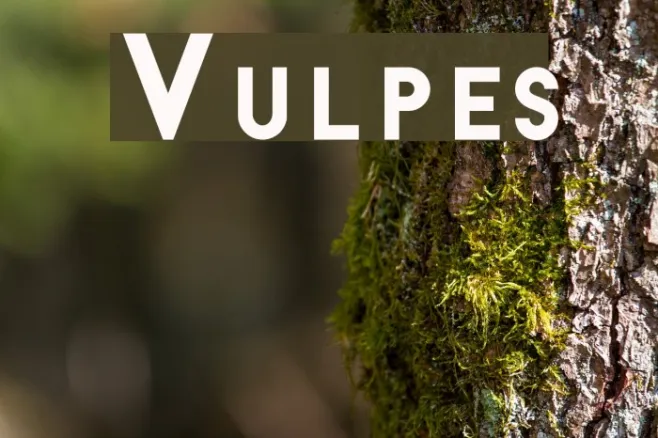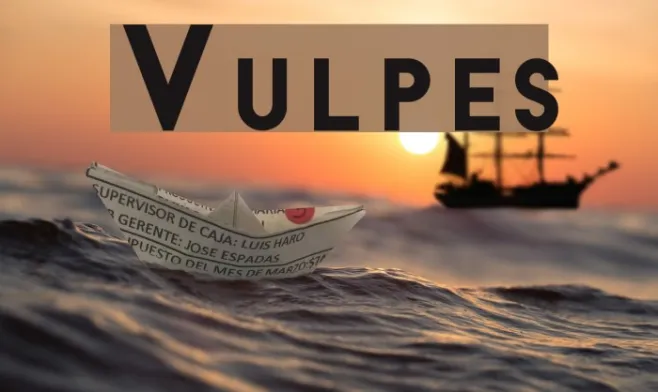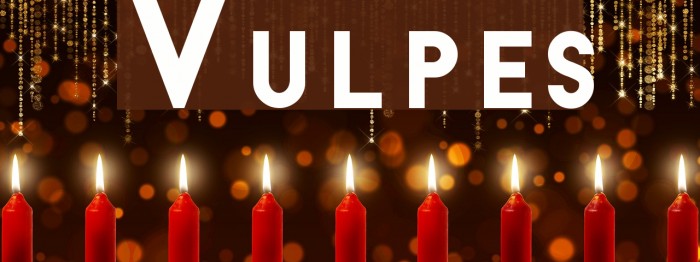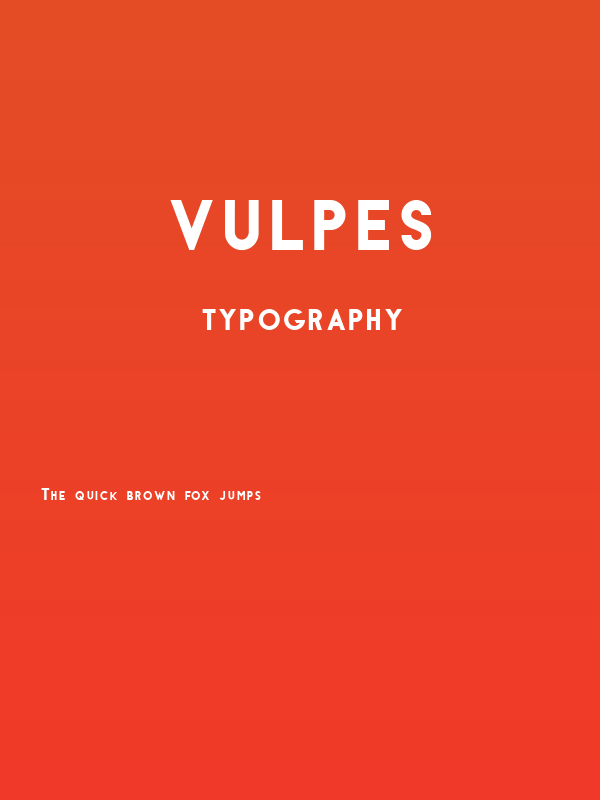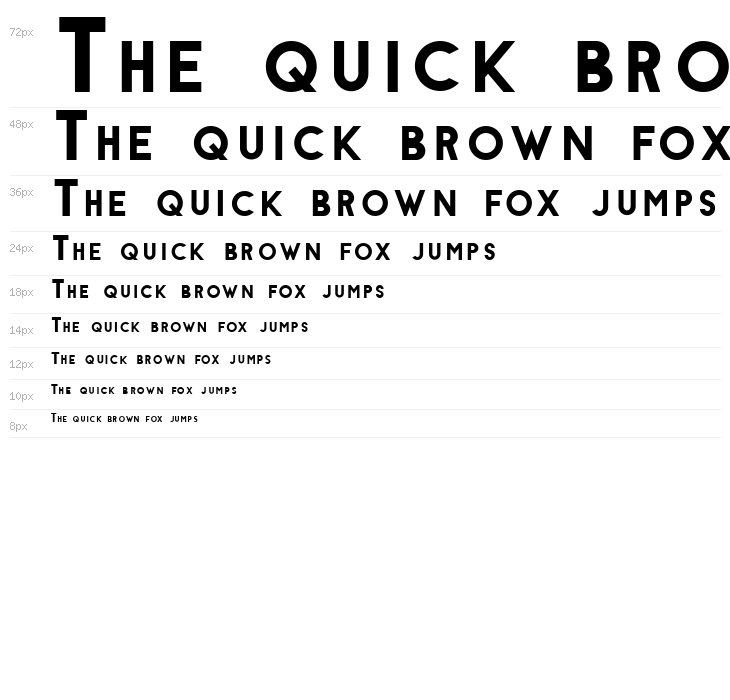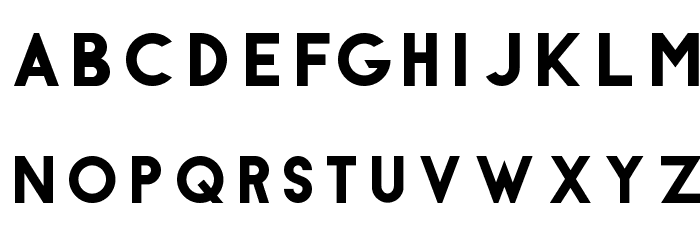
Vulpes Font
Vulpes Description
This font features a bold and modern sans-serif style with clean, geometric lines. The characters are well-proportioned, offering a sense of balance and clarity. The uppercase letters are uniform in height, while the lowercase letters maintain a consistent baseline, enhancing readability. The numerals are distinct and easy to distinguish, making them suitable for various applications. The special characters are designed with the same geometric precision, ensuring a cohesive look across all glyphs. This font's simplicity and boldness make it versatile for both digital and print media.
| Use Case | Headlines, Logos, Digital Media |
| Proposed Projects | Ideal for branding, advertising, web design, and editorial layouts. |